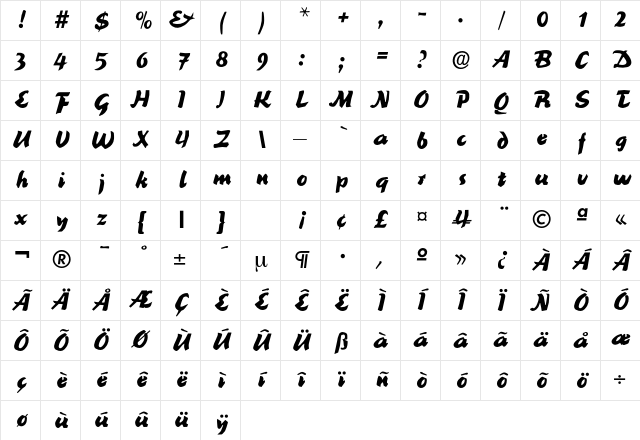
Complete ReinerBlack Regular glyph index. Displaying only characters natively supported by ReinerBlack Regular font.
Design Context for ReinerBlack
ReinerBlack is a composed and adaptable typeface that performs quietly and consistently across a wide range of design contexts.